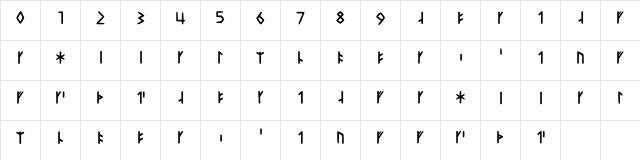
Younger Futhark Short Twig Made Regular
Design Context for Younger Futhark Short Twig Made Typeface
Younger Futhark Short Twig Made is a composed and adaptable typeface that performs quietly and consistently across a wide range of design contexts.